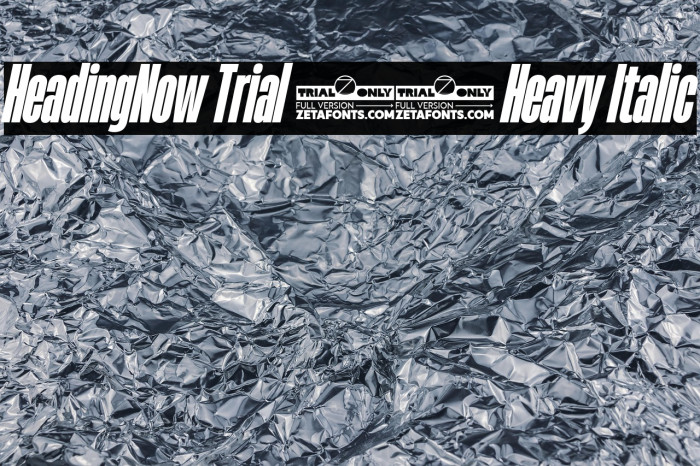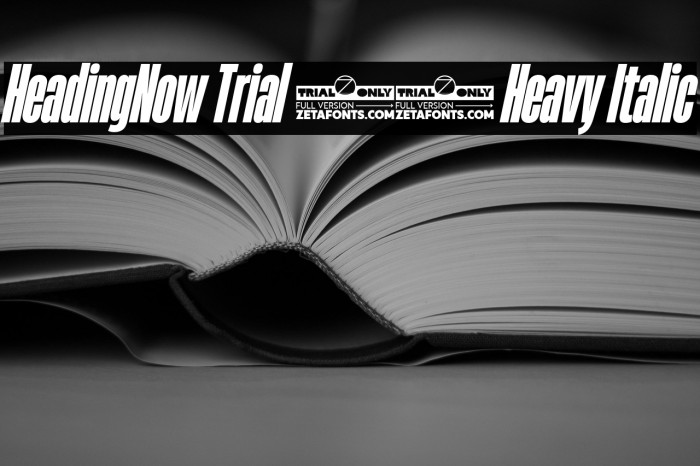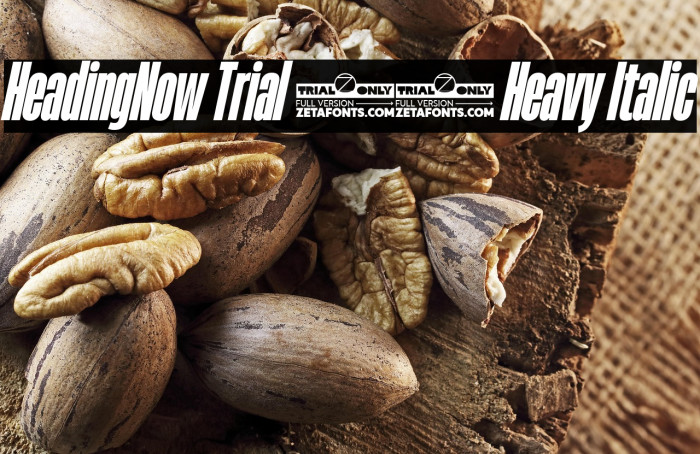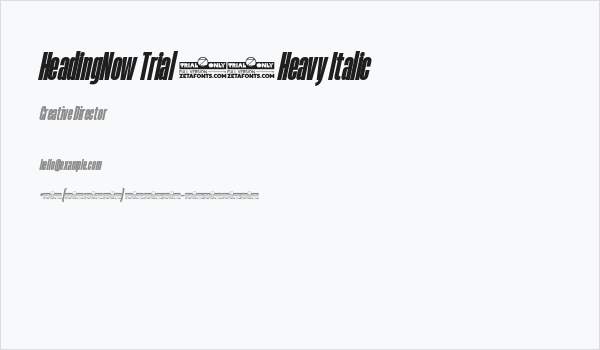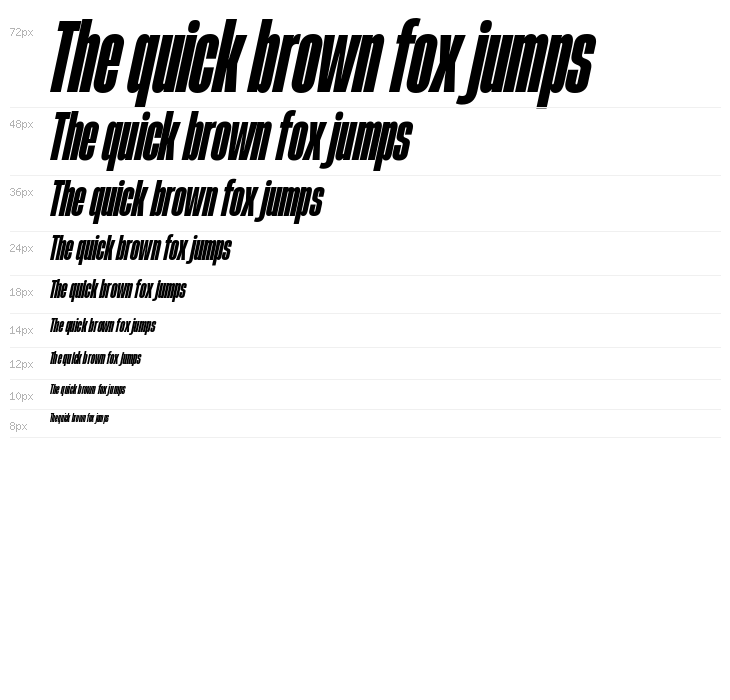
HeadingNow Trial 28 Heavy Italic Font
HeadingNow Trial 28 Heavy Italic Description
This font exhibits a bold and dynamic style, characterized by its heavy weight and italic slant. The uppercase and lowercase letters are designed with a strong presence, making them ideal for impactful headlines. The characters are slightly condensed, enhancing the boldness and allowing for efficient use of space. The strokes are consistent in thickness, providing a uniform appearance across all characters. The font's modern aesthetic is complemented by its high contrast, which adds to its readability and visual appeal. Special characters maintain the same bold and italicized style, ensuring consistency throughout the typeface.
| Proposed Projects | Ideal for headlines, posters, branding materials, and any design requiring a strong visual impact. |